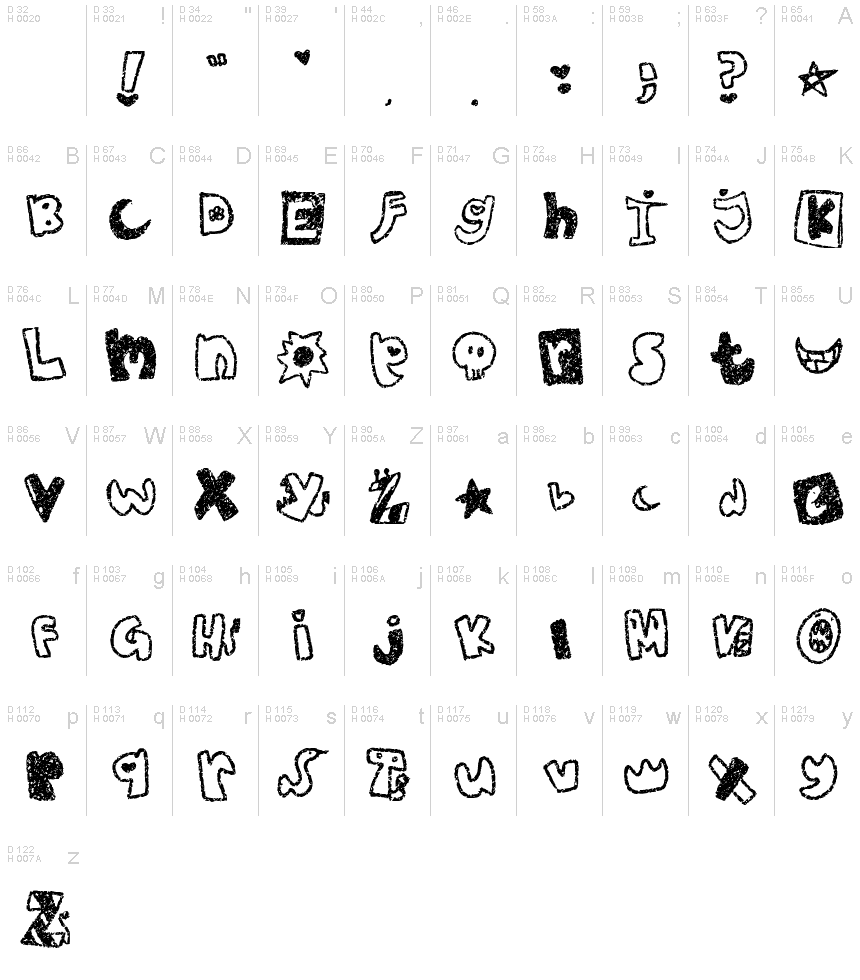
Akowakowkaowka Regular
Introducing Akowakowkaowka, a bold, decorative display font designed by Awokawok. Perfect for making a statement in logos and titles, this stylish font is sure to bring life to your creative projects.